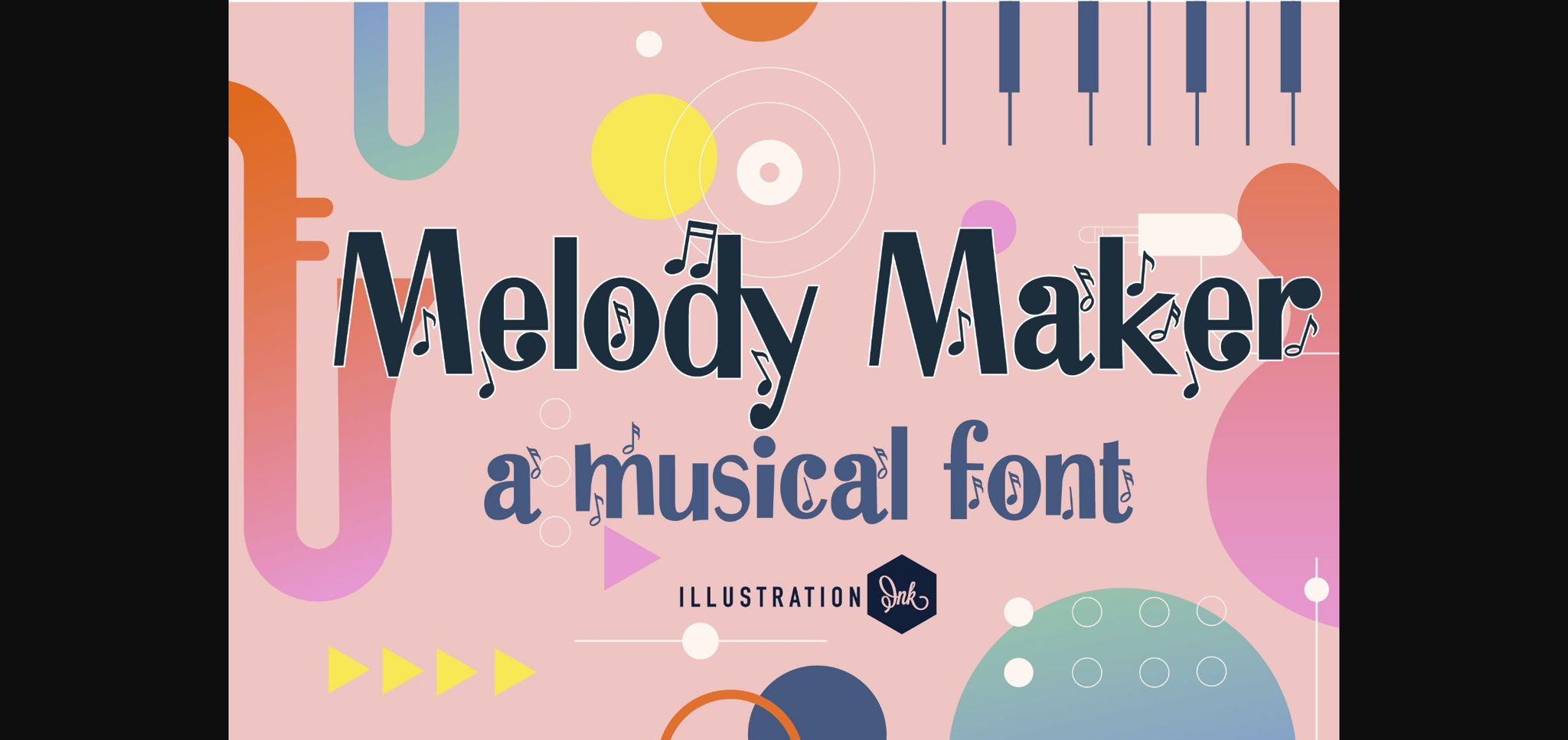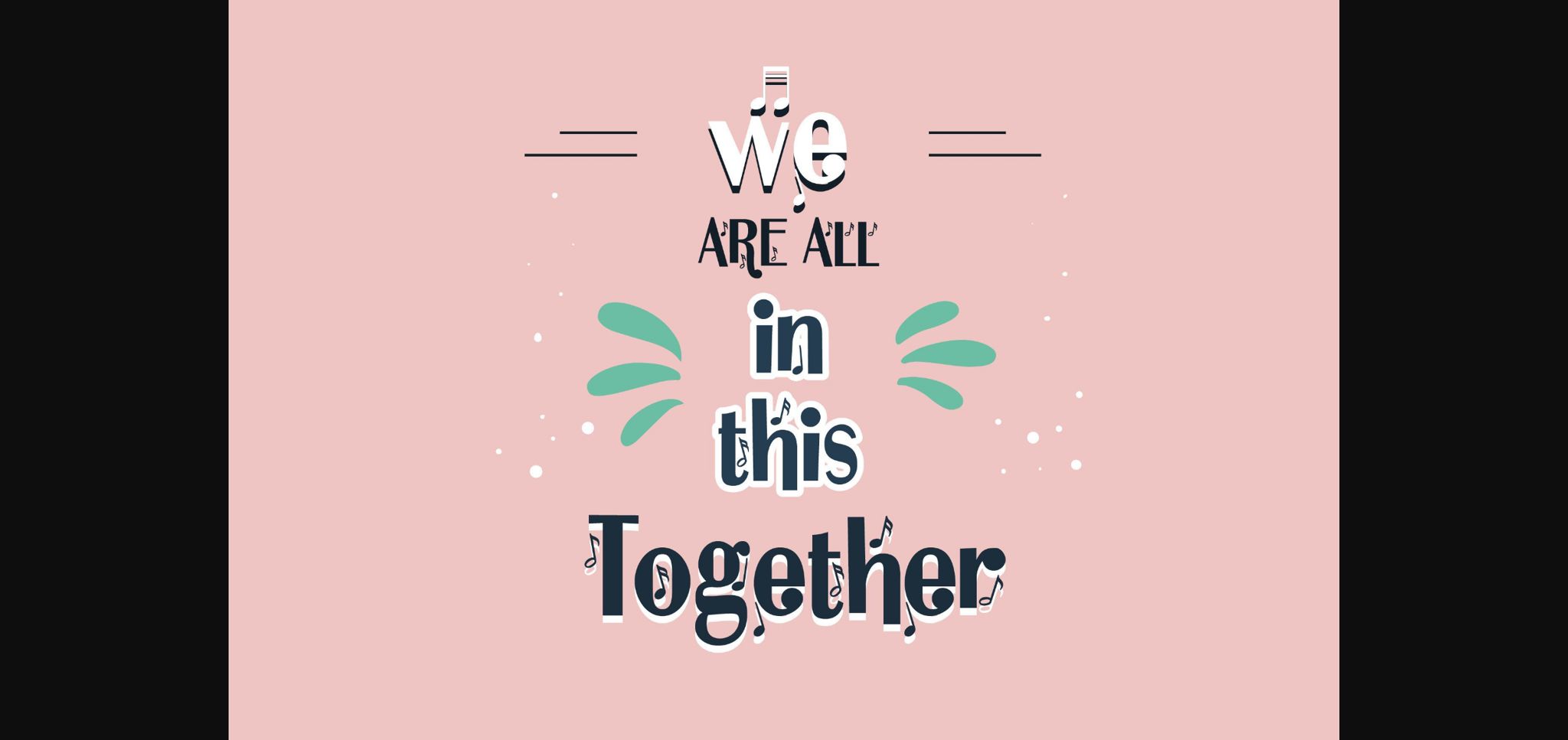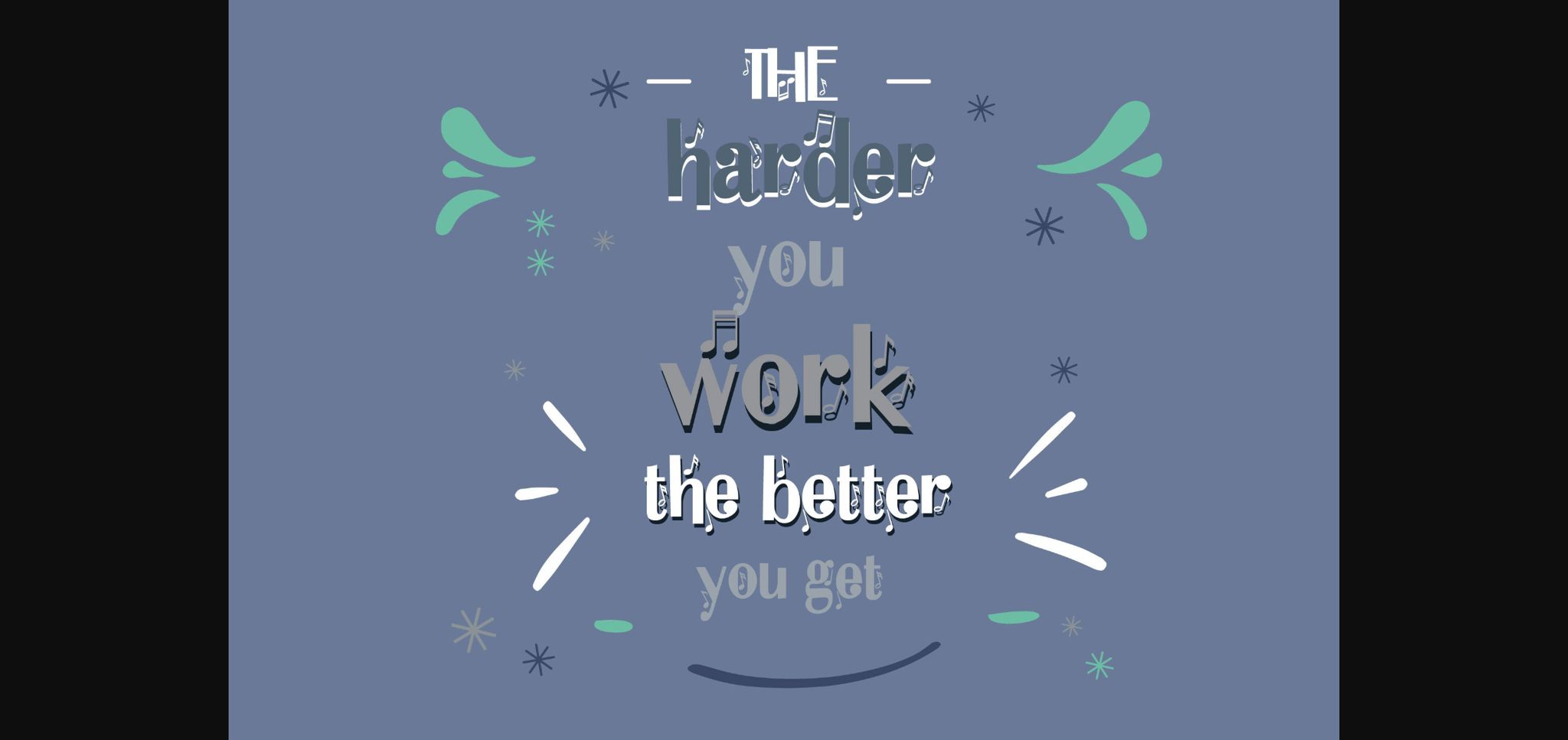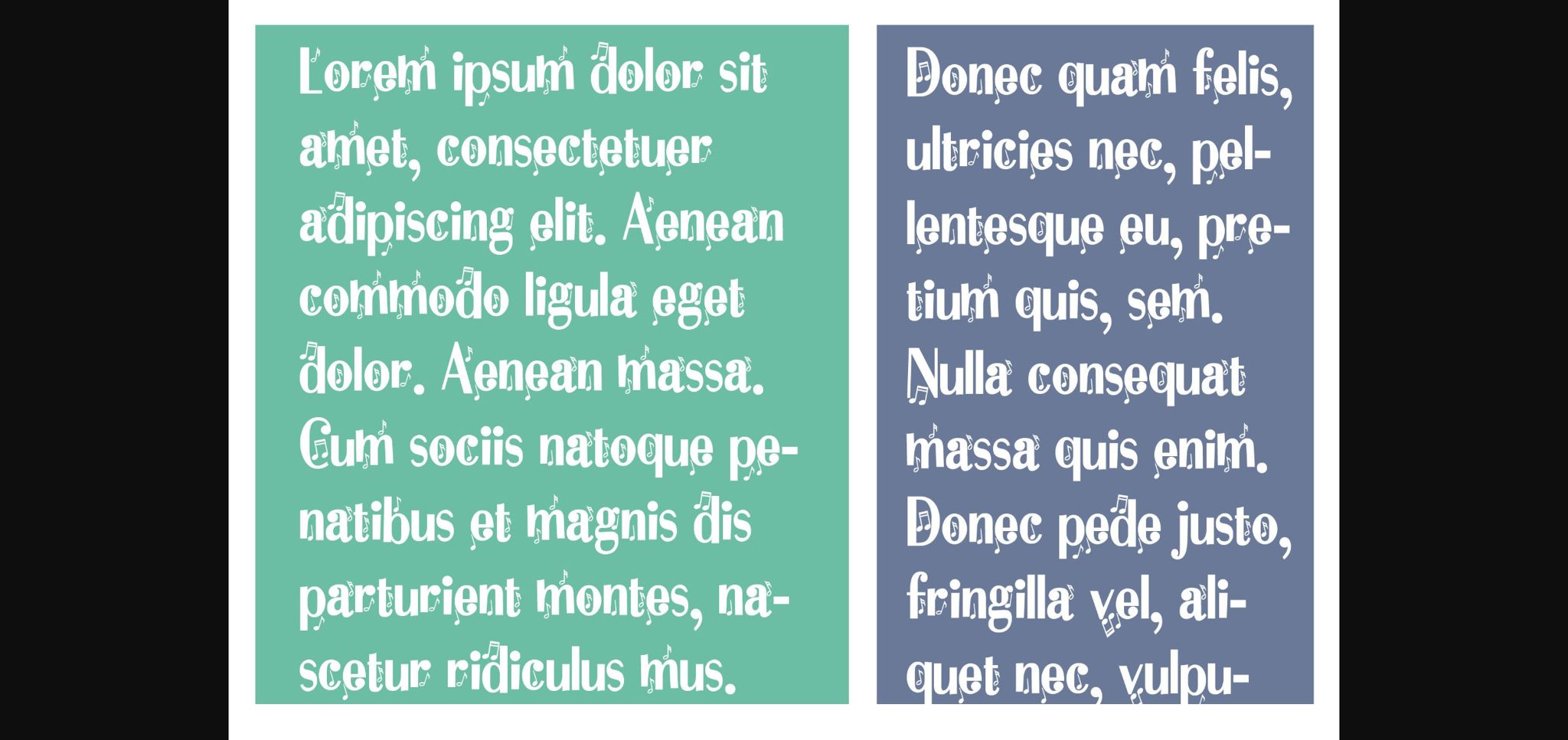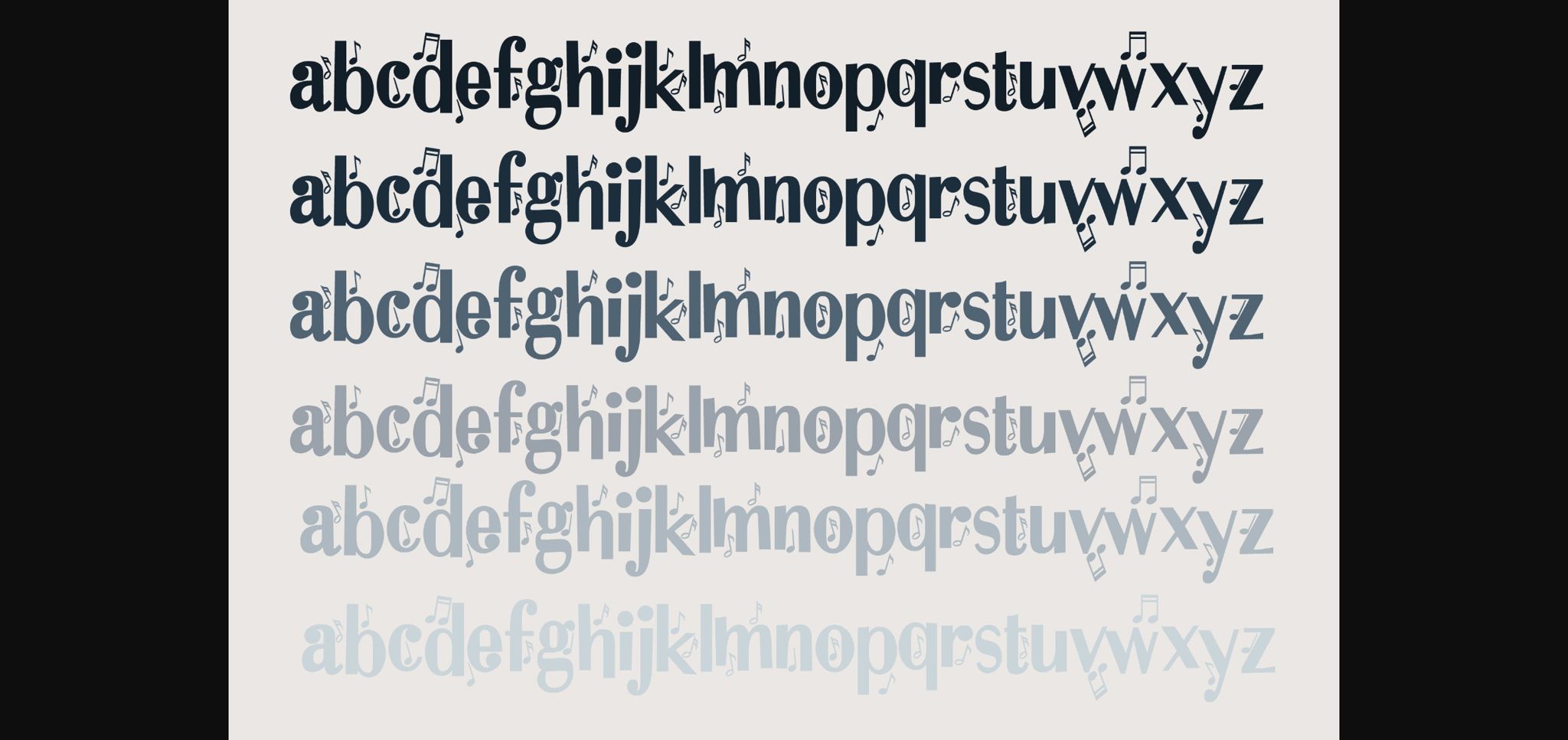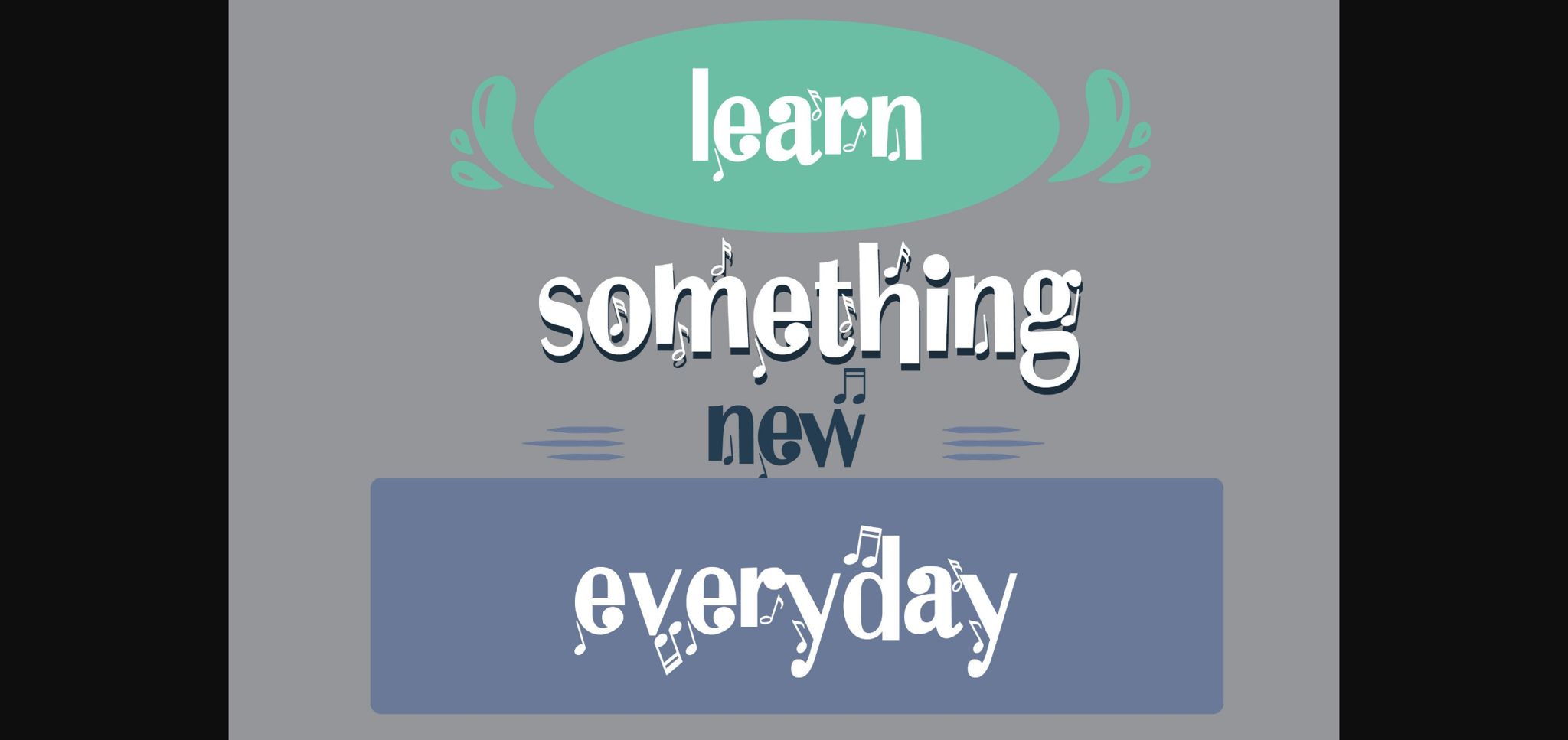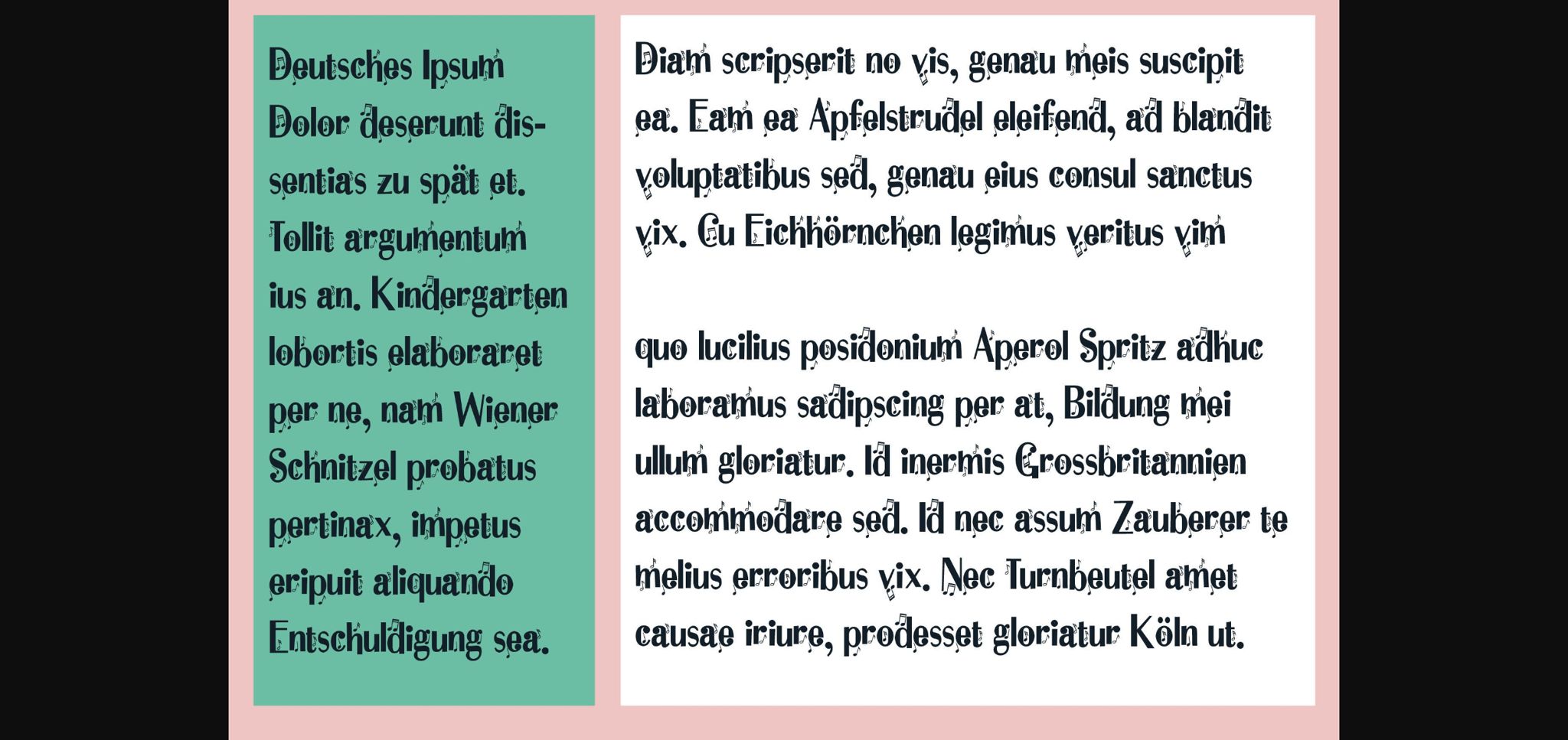
HomeSans Serif FontsMelody Maker Font Sans Serif Fonts Melody Maker Font FacebookXPinterestWhatsApp 1 of 9 ... Melody Maker Font Poster 2... Melody Maker Font Poster 3... Melody Maker Font Poster 4... Melody Maker Font Poster 5... Melody Maker Font Poster 6... Melody Maker Font Poster 7... Melody Maker Font Poster 8... Melody Maker Font Poster 9... About Melody Maker Font Melody Maker is a bouncy sans serif font that features musical notes throughout. Let your creativity flow with this cool font and use it to make unique designs. DOWNLOAD NOW People also explored Taqela Font Morning Magpie Font Reddgo Font Garage Sale French Monograms Pastel Font Excited Font Blaster Font Marketing Font 300 0 TagsMelody Maker Font Previous articleAleeza FontNext articlePens and Pencils Font LEAVE A REPLY Cancel reply Comment: Please enter your comment! Name:* Please enter your name here Email:* You have entered an incorrect email address! Please enter your email address here Website: Save my name, email, and website in this browser for the next time I comment. Personal Use Free Pinky Personal Use Free Read more about this font December Christmas Personal Use Free Read more about this font Cherry Ai Personal Use Free Read more about this font Advantage Personal Use Free Read more about this font BLOG How to Install and Use Fonts on Windows, macOS, and Web Projects How to Install and Use Fonts on Windows, macOS, and Web Projects Fonts are a crucial part of design and branding. Whether you’re designing a... The 10 Best Handwriting Fonts to Add Personality to Your Designs To increase your work productivity, choose the most readable fonts. Transform Your Website: Elevate Your Typography with 7 Best Web Font Generators